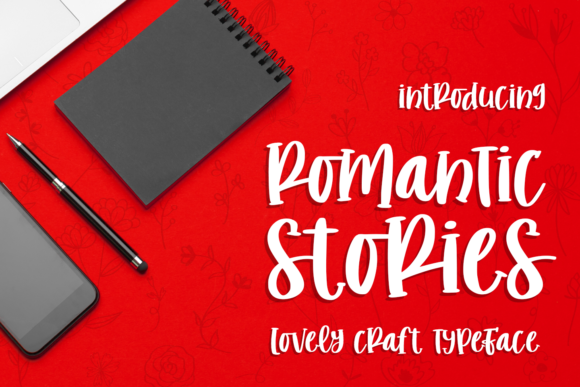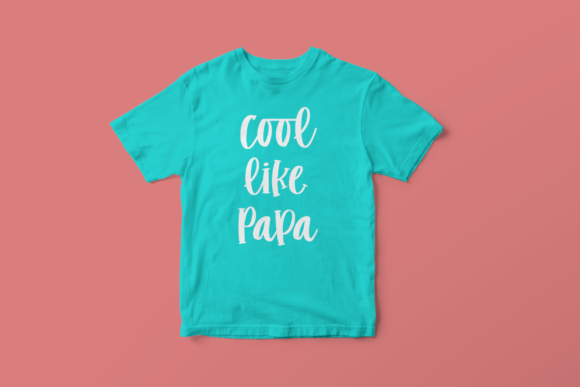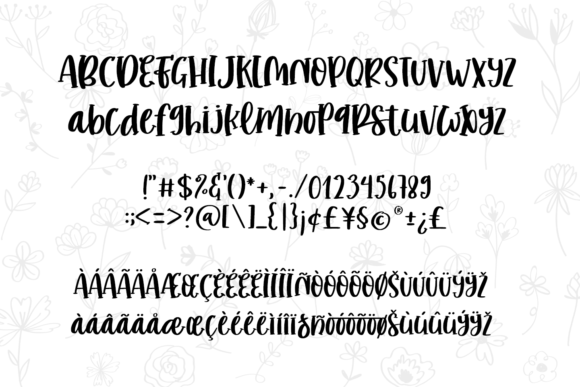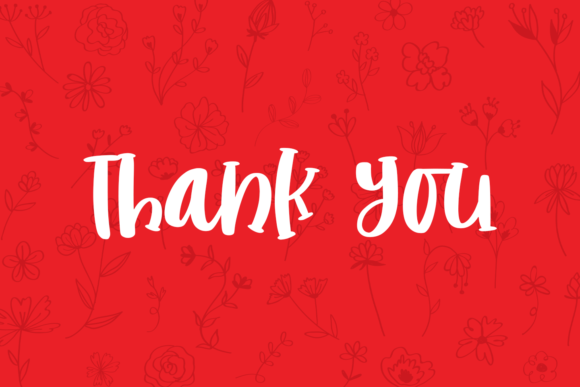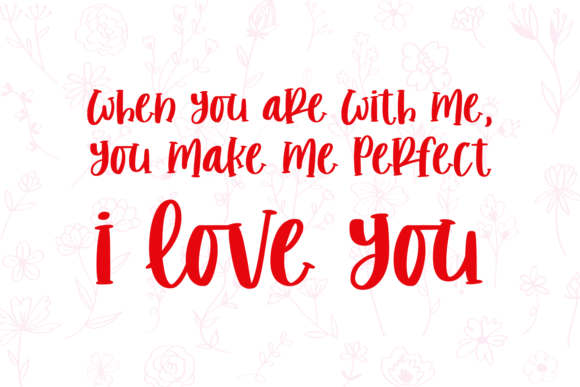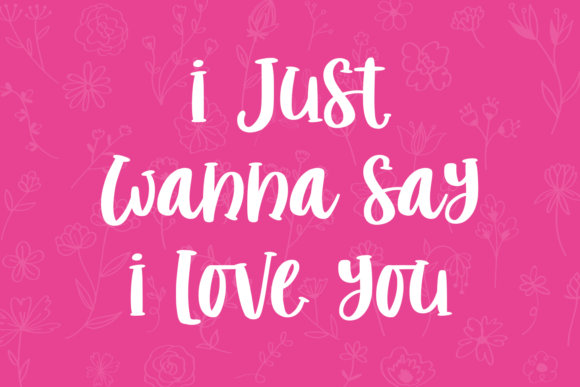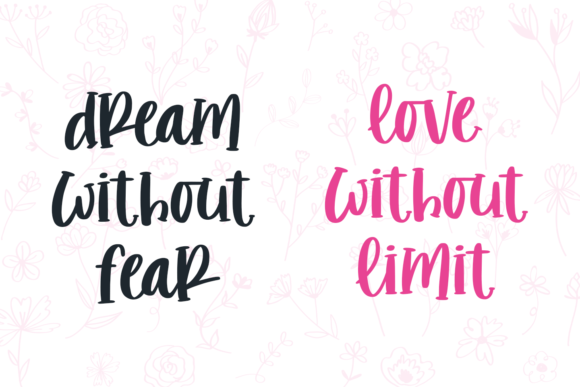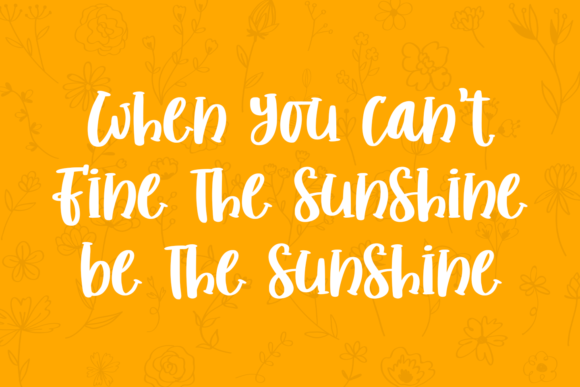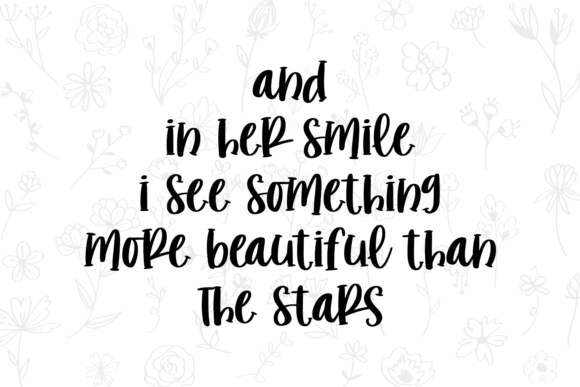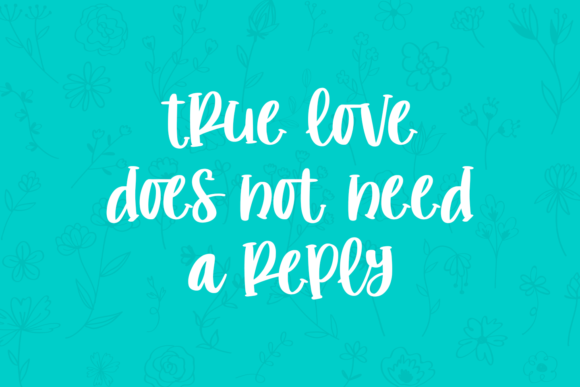
HomeScript FontsRomantic Stories Font Script Fonts Romantic Stories Font FacebookXPinterestWhatsApp Romantic Stories Font Poster 2 Romantic Stories Font Poster 3 Romantic Stories Font Poster 4 Romantic Stories Font Poster 5 Romantic Stories Font Poster 6 Romantic Stories Font Poster 7 Romantic Stories Font Poster 8 Romantic Stories Font Poster 9 Romantic Stories Font Poster 10 Romantic Stories Font Poster 11 Romantic Stories Font Poster 12 About Romantic Stories Font Romantic Stories is a sweet handwritten font. Use it to add a romantic touch to your designs! DOWNLOAD ON CREATIVE FABRICAThis font is sold and delivered by Creative Fabrica. Font Canyon may earn a commission if you buy through this link. People also explored Mottion Font Martan Calline Font Nature Force Font Martina Font Hanging Frames Font Besho Pharaoh Font Backrush Font Gilonta Font Yoshua Font 339 0 TagsRomantic Stories Font Previous articleBlack Love FontNext articleButterfly Font LEAVE A REPLY Cancel reply Comment: Please enter your comment! Name:* Please enter your name here Email:* You have entered an incorrect email address! Please enter your email address here Website: Save my name, email, and website in this browser for the next time I comment. Personal Use Free Makcex Personal Use Free Read more about this font Batik Classic Personal Use Free Read more about this font Electroharmonix Personal Use Free Read more about this font Andolas Personal Use Free Read more about this font BLOG Top 7 Google Fonts Alternatives for Faster and Privacy-Friendly Web Design (2025) Top 7 Google Fonts Alternatives for Faster and Privacy-Friendly Web Design (2025) When it comes to web typography, Google Fonts has long been the go-to... Best Fonts for YouTube Videos: Make Your Thumbnails Stand Out Fonts That Capture the Spirit of New York City Free vs Paid Fonts: Why Investing in Premium Fonts Is Worth It